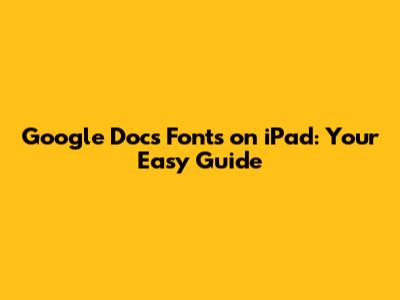
- Open Your Browser: First things first, launch your preferred web browser on your iPad – Safari, Chrome, whatever you usually use.
- Go to Google Docs: Navigate to
docs.google.com. You might need to sign in to your Google account if you aren't already. - Open Your Document: Either create a new document or open an existing one that you want to jazz up with new fonts.
- Locate the Font Menu: Look at the toolbar at the top of your document. You'll see the current font name. Click on it.
- Hit 'More fonts': In the dropdown menu that appears, scroll all the way down. You should see an option that says 'More fonts'. Click on that bad boy.
- Explore and Add: Now you're in the font explorer! This is where the party's at. You can scroll through thousands of fonts. Use the search bar if you have a specific font in mind, or filter by style (Serif, Sans Serif, Display, Handwriting, Monospace) to find something new. Found a font you absolutely adore? Just click the little
+icon next to its name. It will move to the 'My fonts' list on the right. Add as many as you like! - Confirm Your Choices: Once you've added all the fonts you want, click the blue 'OK' button at the bottom.
Hey everyone! So, you're working on your Google Docs on your iPad, and you're feeling a bit… limited by the font choices? Yeah, I've been there, guys. You've got this amazing idea, this killer report, or this super creative story, and you just know it would look a million times better with that perfect font. But alas, the standard selection feels a bit… meh. Well, fret not! Adding more fonts to Google Docs on your iPad is totally doable, and I'm here to walk you through it. It’s not as complicated as you might think, and once you get the hang of it, your documents are going to have that extra oomph they deserve. We're talking about making your text pop, adding a professional touch, or just injecting some personality into your work. So, grab your iPad, maybe a comfy seat, and let's dive into the wonderful world of typography on the go!
Understanding Google Docs Font Limitations (and How to Beat Them)
Let's get real for a sec, guys. When you first open up Google Docs on your iPad, the font options might seem a little… basic. It's like showing up to a designer's party with just a handful of stock T-shirts. You want options! You want to express yourself! The good news is that Google Docs, especially when you're using it on a web browser (more on that later!), is actually super robust. The core Google Fonts library is massive, and while the mobile app might not show all of them directly in the dropdown, there are clever ways to access them. Think of it like having a secret stash of amazing fonts waiting for you. The key is understanding why you might not see your dream font immediately. Sometimes, it's about the app interface being streamlined for mobile use, and other times, it's about how Google Docs syncs its font library. But don't let that discourage you! The goal here is to unlock that full potential. We're going to explore how to access the entire Google Fonts catalog, which is an incredible resource with thousands of professionally designed typefaces. We’ll cover how to find fonts that match your project’s vibe, whether you're going for elegant, playful, serious, or anything in between. Remember, the right font can completely change the perception of your document, making it more readable, more engaging, and frankly, more professional. So, before we jump into the step-by-step, let's appreciate that Google Fonts itself offers a vast, free library. Our mission is simply to make sure your iPad experience gives you access to that full glory. It’s all about empowering your creativity and making sure your digital documents look as good as your ideas are great. Stick with me, and we'll get those documents looking sharp in no time!
The Browser Method: Your Font Freedom Pass
Alright, team, this is where the magic really happens. If you want the full font experience on your iPad for Google Docs, the absolute best way is to use the web browser. Yep, that's right. Instead of relying solely on the Google Docs app, fire up Safari or Chrome on your iPad and navigate to docs.google.com. Why is this the golden ticket? Because the web version of Google Docs gives you access to the complete Google Fonts library, just like you would on a desktop computer. The app is great for quick edits and on-the-go convenience, but for font selection freedom, the browser reigns supreme. When you open a document in the browser, you'll see a more comprehensive toolbar, including a 'More fonts' option that isn't always as prominent or accessible in the native app. This 'More fonts' button is your gateway to literally thousands of typefaces. You can browse, search, and select fonts from the entire Google Fonts collection. Once you add a font this way through the browser, it should then become available in your font dropdown even when you switch back to the Google Docs app for editing. It’s like unlocking a new level in your favorite game! So, the process is pretty straightforward: log into Google Docs via your browser, open your document, click on the font dropdown, select 'More fonts', and then start adding to your heart's content. You can search by category, popularity, or even alphabetically. Found one you love? Just click the '+' next to it to add it to your collection. This is the most reliable method for ensuring your chosen fonts are available across all your Google Docs work on your iPad. Don't underestimate the power of the browser, guys; it’s your secret weapon for document design!
Step-by-Step: Adding Fonts via Browser
Let's break down the browser method so you can see just how easy it is. Seriously, it’s a piece of cake.
And voilà! Those newly added fonts should now appear in your font dropdown menu within that document in the browser. Crucially, they will also sync up and be available when you access the same document using the Google Docs app on your iPad. It's like having your entire font library follow you around. Pretty sweet, right? This method ensures you're not limited by the app's default selection and can truly customize your documents to perfection.
Using the Mobile App: Limitations and Workarounds
Now, let's talk about the Google Docs mobile app on your iPad. It's super convenient for quick edits, making notes, and accessing your files anywhere. However, when it comes to adding new fonts beyond the standard set, the app can feel a bit restrictive. You won't find that extensive 'More fonts' option directly within the app's interface like you do in the browser version. The app usually only displays fonts that have been previously added via the browser or are part of a very basic, pre-selected list. So, if you're trying to add a fresh font solely through the app, you're likely out of luck. This can be frustrating when you're on the go and desperately need a specific typeface. But don't despair! The workarounds are all about leveraging the browser method first. Think of the app as the 'editing suite' and the browser as the 'font library access point'. If you want a font to be available in the app, you must add it via the browser first, as we discussed. Once it's added to your Google account's font list through the browser, it should then appear in the font selection dropdown within the app. It might take a moment to sync, so don't panic if it doesn't show up immediately. Sometimes, closing and reopening the app helps. The key takeaway here, guys, is that the app itself isn't designed for adding new fonts; it's designed for using the fonts that have been made available to your account. So, while you can't add fonts directly within the app, you can absolutely use any font you've added through the browser once you're back in the app. It’s all about setting it up correctly beforehand using the browser.
Font Syncing: What to Expect
So you've bravely ventured into the browser, added a bunch of killer fonts, and now you're wondering, 'Will these actually show up in my app?' The short answer is: usually, yes! Google Docs is designed to sync your font choices across devices and platforms, including your iPad app. However, like any tech, there can be a slight delay or occasional hiccup. When you add fonts via the browser, they get associated with your Google account. The Google Docs app then pulls this list from your account. Sometimes, this syncing process isn't instantaneous. You might need to close the Google Docs app completely (swipe it up from the app switcher) and then reopen it. Give it a minute or two. Refreshing the document itself within the app can also sometimes do the trick. If you're adding a font and need it right now for an urgent edit in the app, your best bet is to add it via the browser, then open the app and give it a moment to catch up. Don't get discouraged if it's not there the second you switch back. Think of it like downloading a new track for your playlist; it might take a beat to appear. Consistency is key here – once a font is added through the browser, it's generally available everywhere associated with your Google account. This ensures that a document you format with a specific font on your iPad will look the same if you open it on a desktop or another tablet. The goal is a seamless experience, and for the most part, Google delivers on that. Just be patient with the sync!
Tips for Choosing and Using Fonts Effectively
Choosing the right font is like picking the perfect outfit for an important event, guys. It sets the tone, conveys your message, and impacts how people perceive your content. So, let's talk about making smart choices.
Readability First!
This is non-negotiable. No matter how cool a font looks, if people can't read it easily, it's failed its primary job. For body text, stick to classic, clean fonts. Think Serifs (like Times New Roman, Georgia) or Sans-Serifs (like Arial, Calibri, Lato). These are designed for comfortable reading over long passages. Highly decorative or script fonts are best used sparingly, perhaps for a title or a small accent, not for paragraphs. Always test your font choice by reading a few sentences aloud to yourself. Does it flow well? Is it easy on the eyes?